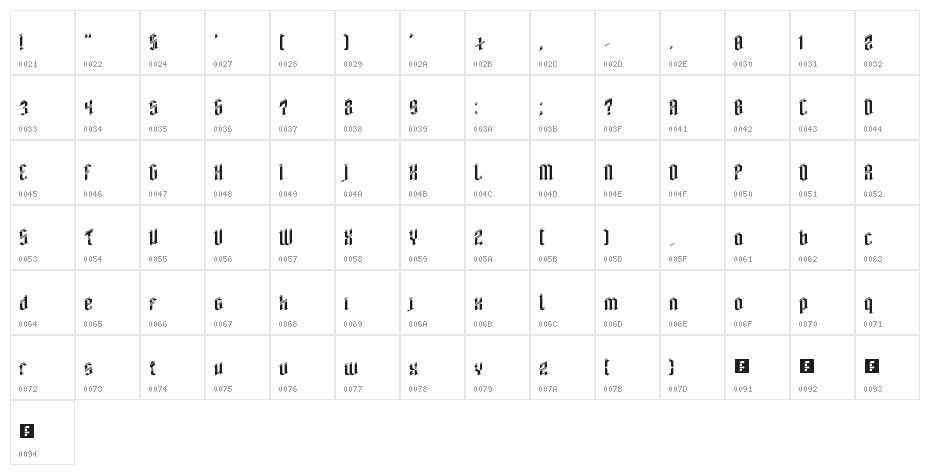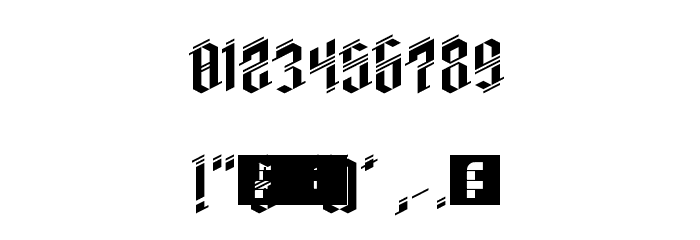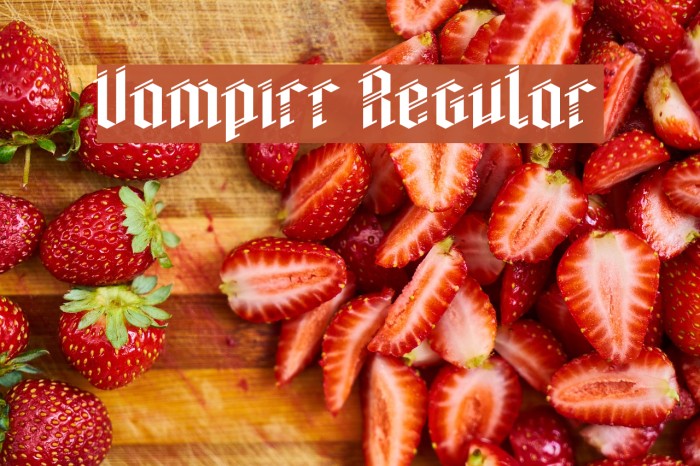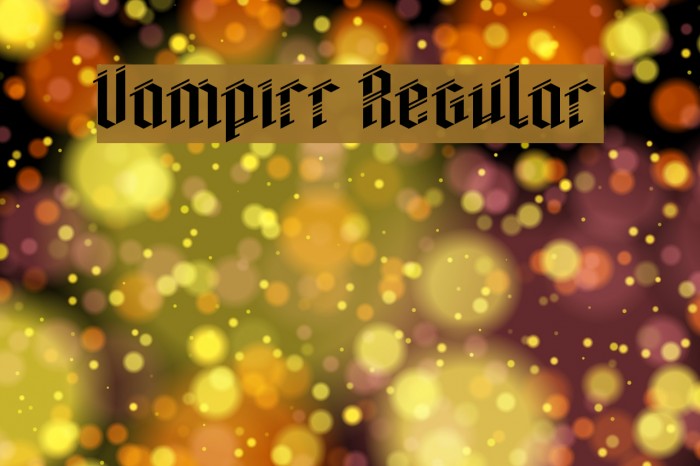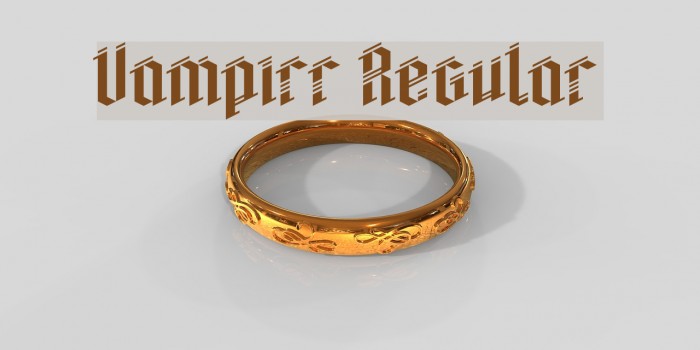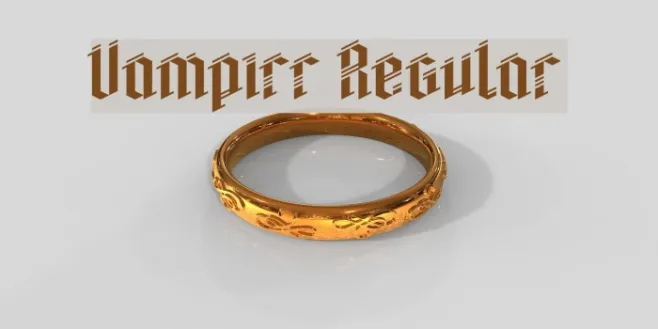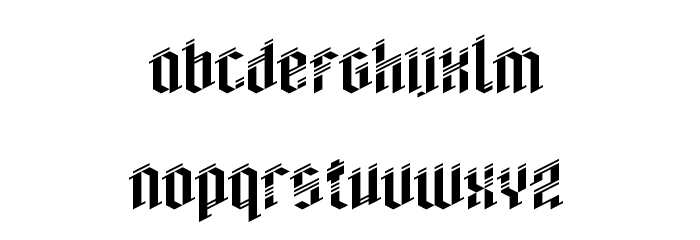
Vampirr Regular Font
Vampirr Regular Description
This font features a bold and striking design with a gothic, medieval flair. The characters are angular and sharp, with a distinct blackletter influence that gives it a dramatic and intense appearance. The uppercase and lowercase letters maintain a consistent style, with intricate detailing that enhances its ornate quality. The numbers and special characters follow the same aesthetic, ensuring a cohesive look across all text elements. This font's unique style makes it ideal for projects that require a touch of historical or fantasy elements.
| Overall Style | Gothic |
| Use Case | Headlines, Logos, Decorative text |
| Proposed Projects | Ideal for fantasy book covers, gothic-themed posters, or historical event invitations. |